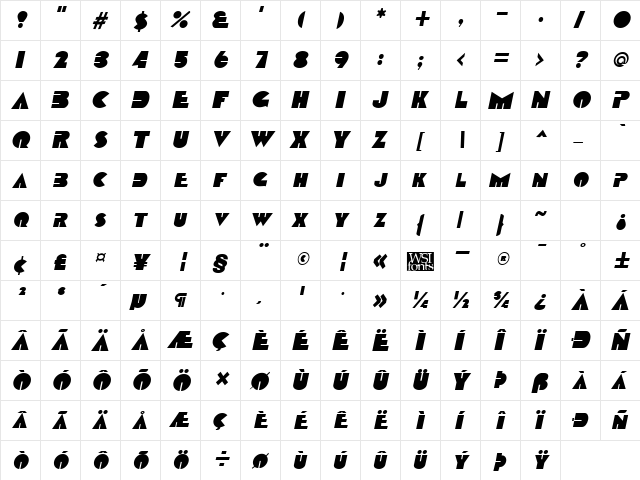
Datcotheque Italic
Design Context for Datcotheque Typeface
Datcotheque is a composed and adaptable typeface that performs quietly and consistently across a wide range of design contexts. Its italic angle brings a sense of urgency and motion to the letterforms.
Pro Tip: Try Datcotheque for annotation and caption copy alongside an upright companion — the contrast in angle creates a dynamic but ordered typographic system.